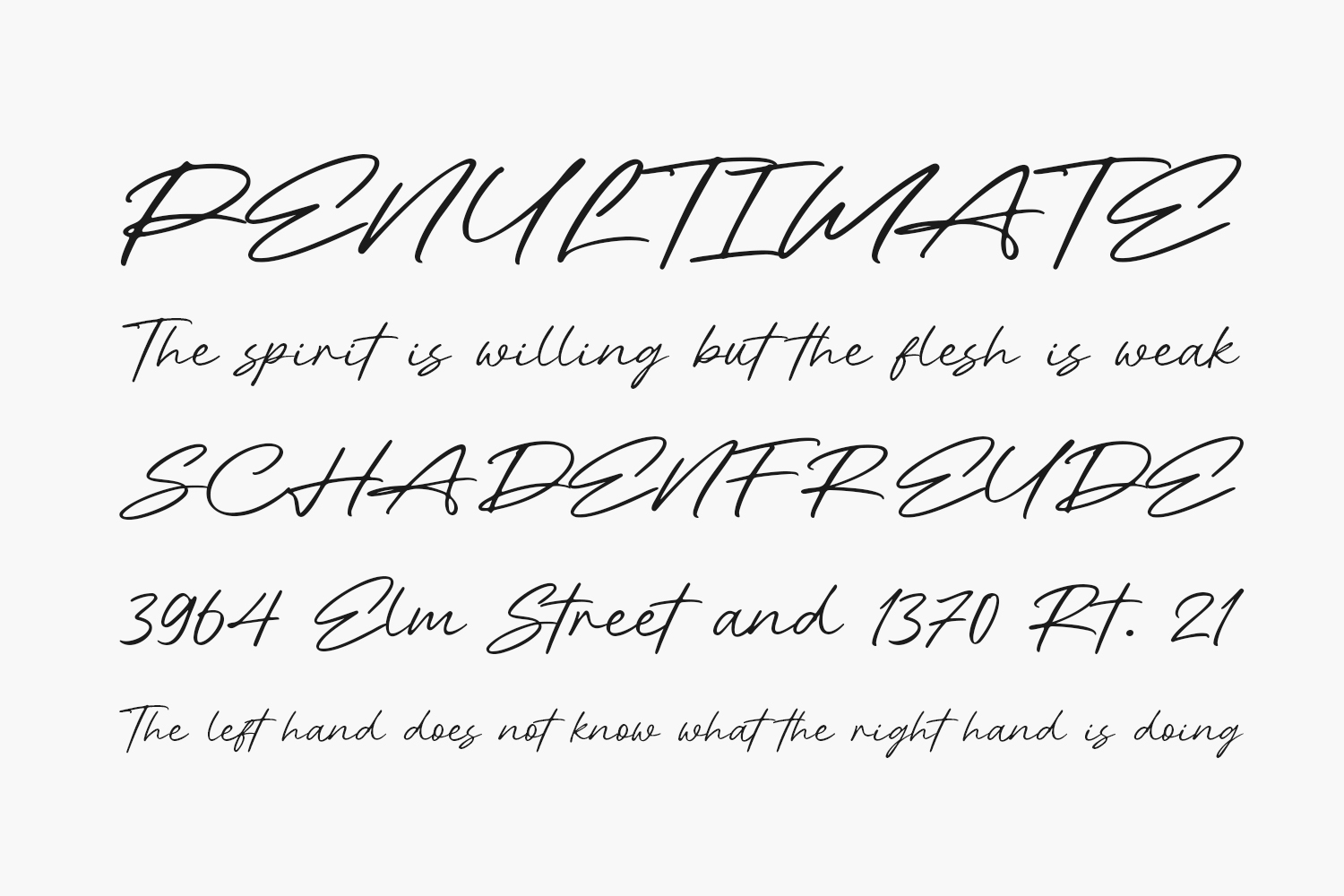
Ballite Free Font – Stylish Script Typeface for Elegant Designs
Ballite is a refined and modern script font designed by Khurasan to bring sophistication and clarity to your creative projects. With its smooth curves, natural stroke contrast, and elegant letterforms, this free handwritten font works perfectly for crafting eye-catching logos, magazine headers, book covers, and digital graphics. Available in TTF and OTF formats with support for Latin characters, Ballite is ideal for designers seeking a stylish script font for personal use — perfect for branding, packaging, or social media quotes.
Why Choose Ballite?
- Elegant Style: Combines soft calligraphic strokes with modern minimalism for a balanced, sophisticated look.
- Ideal for Logos & Branding: Adds class and personality to brand identities, fashion labels, or boutique shops.
Where to Use Ballite?
Ballite shines across a variety of design applications:
- Logos & Branding: Perfect for creating memorable brand kits, especially for lifestyle, wellness, or beauty brands.
- Social Media Graphics: Creates bold, elegant text overlays for Instagram Stories, Pinterest pins, and TikTok videos.
- Editorial Design: Stands out in blog headers, magazine layouts, and advertising campaigns with a human touch.
- Packaging Design: Ideal for product labels on cosmetics, candles, artisanal goods, or handmade crafts.
- Book Covers & Invitations: Brings warmth and style to novels, journals, greeting cards, and event stationery sets.
Design Tips with Ballite
To maximize the elegance of Ballite, pair it with minimalist sans-serif fonts like Bubbble Gum or Moonlite for balance and readability. Use this font at large sizes to highlight its expressive swashes and fluidity. For print work, ensure proper spacing and alignment to preserve legibility. Try our interactive font preview tool below to test Ballite with your own text before downloading!